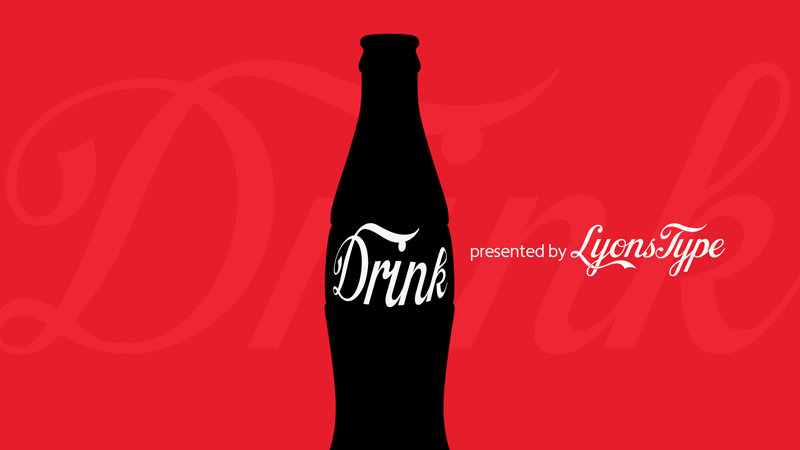
"Drink" is a font not only loosely based upon the Coca-Cola logotype, but is an accurate refinement of the low-quality Loki Cola font, despite that font being made in 1999. The font "Drink" can also be utilized to make your own personal Coca-Cola parodic logos, such as your name, your studio, as well as the fact it can be utilized for anything in relation to Coca-Cola or anything outside it. The personality of this font appears to be as mentioned in the specimen, "refreshing, hydrating, energizing." All LyonsType fonts are freely available to download at: https://lyonstype.wixsite.com/home/typefaces For any inquiries, please contact me at lyonstype@gmail.com |